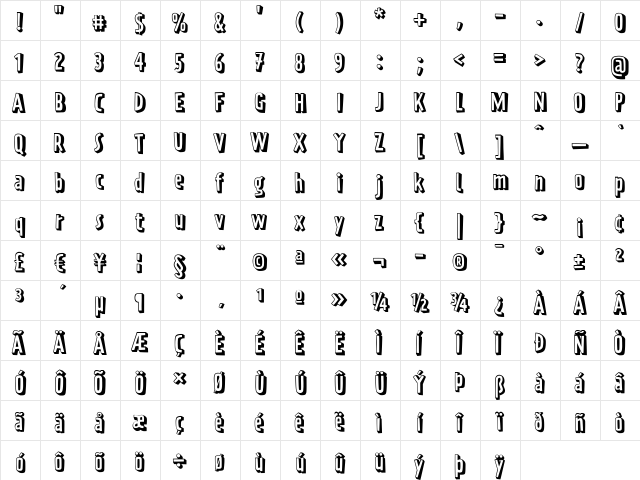
PraterBlockOne-Regular Regular
| Foundry | Steffen Sauerteig, Henning Wagenbreth, published by Fontshop International for the FontFont library |
Design Context for PraterBlockOne-Regular Typeface
PraterBlockOne-Regular is a composed and adaptable typeface that performs quietly and consistently across a wide range of design contexts.